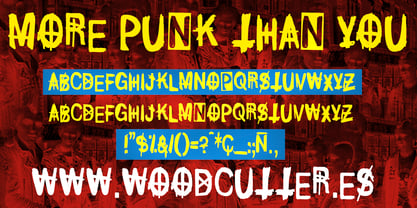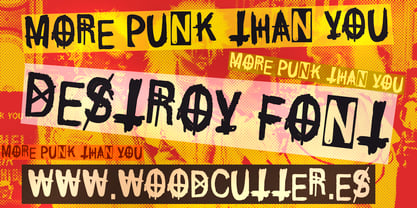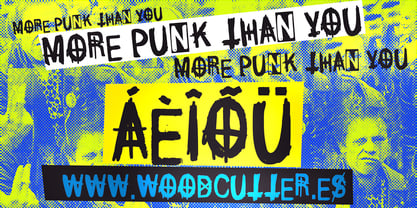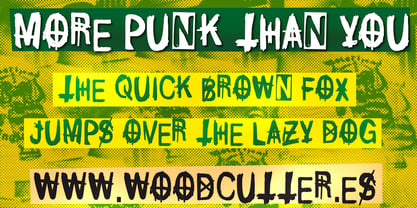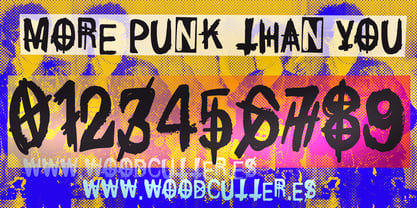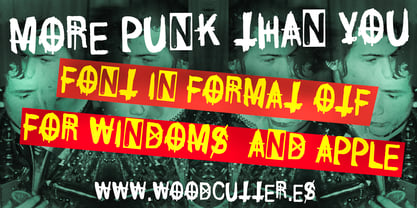
More Punk Than You
by Woodcutter
The More Punk Than You Font Family was designed by Jordi Manero and published by Woodcutter. More Punk Than You contains 1 styles. More about this family
The "More Punk Than You" typeface is an uppercase font with a completely distorted and rebellious style, capturing the raw essence of the punk movement. Its torn, irregular, and seemingly chaotic letters reflect the DIY attitude of underground zines, posters, and iconic punk album covers. Each character appears ripped or beaten, adding a sense of anarchy and visual protest.
It includes accents and is perfect for graphic projects that aim to convey energy, rebellion, and an anti-establishment spirit. "More Punk Than You" is the ultimate typographic scream of punk.